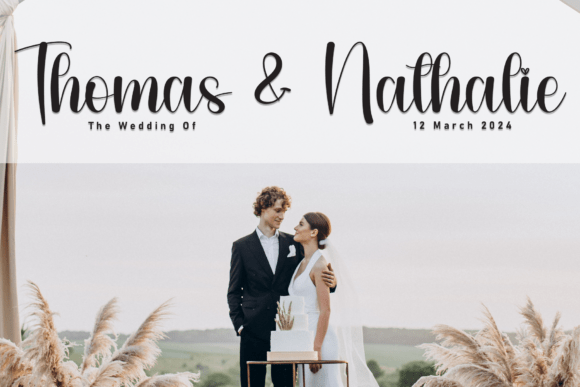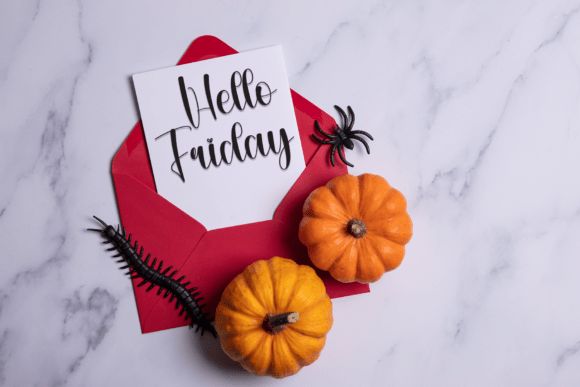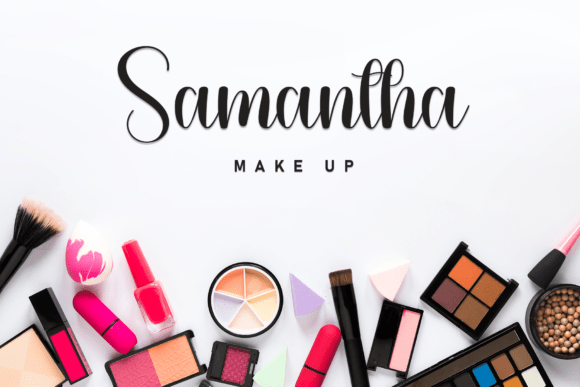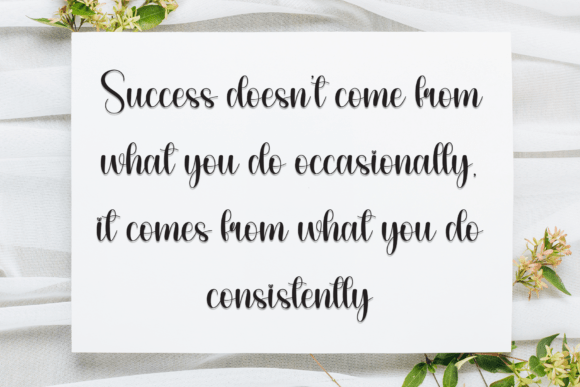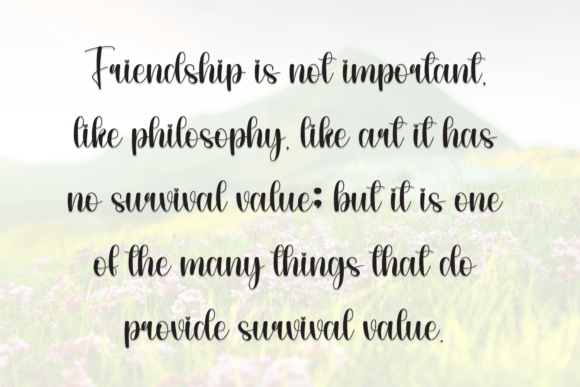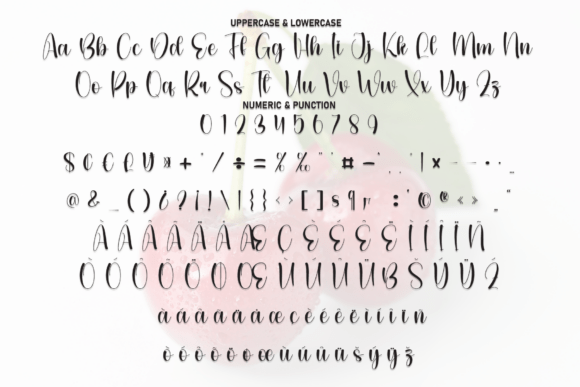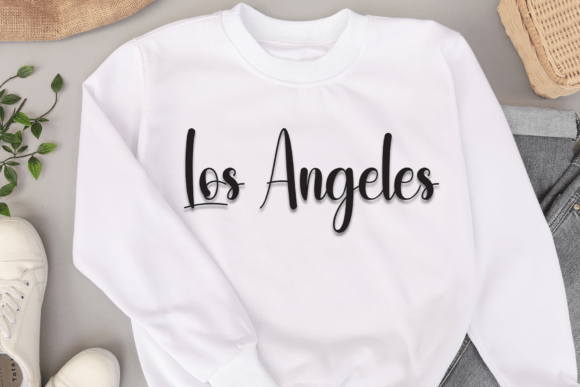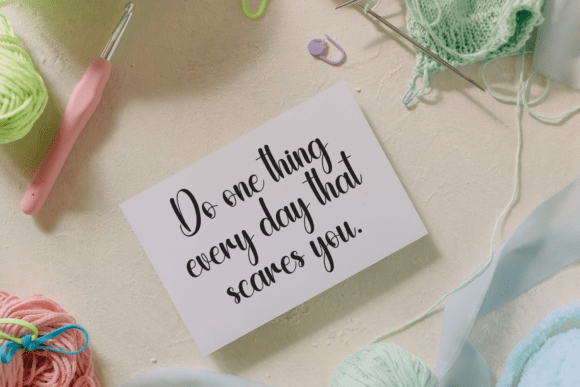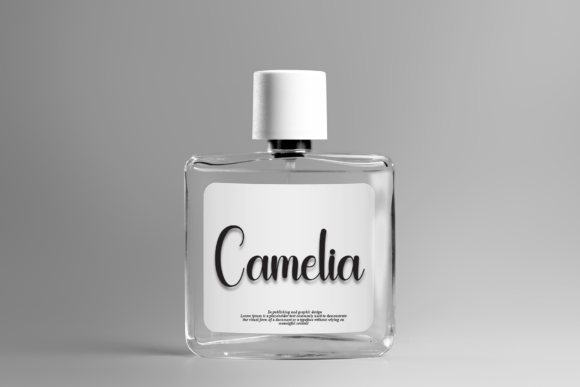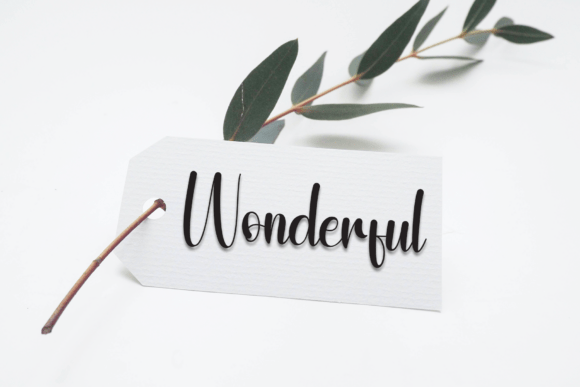
Introducing Cherry Font: The Ultimate Elegance and Playfulness in Handwritten Script
In the world of typography, few fonts manage to strike a balance between elegance and playfulness as effortlessly as Cherry Font. This stylish handwritten script font has been turning heads with its unique blend of sophistication and charm, making it a go-to choice for designers and crafters looking to add a personal touch to their projects. Whether you’re working on invitations, branding, social media, or any other creative endeavor, Cherry Font is sure to bring a level of warmth and creativity that’s hard to match.
The Essence of Cherry Font
At its core, Cherry Font is all about capturing the essence of handwritten elegance with a playful twist. Its flowing curves and natural rhythm give it a distinctly organic feel, reminiscent of handwritten scripts but with a level of precision and consistency that’s uniquely digital. This blend of the organic and the digital is what sets Cherry Font apart, making it an excellent choice for projects that require a touch of sophistication without losing the personal, human element.
Key Features of Cherry Font
• Elegant and Playful Strokes: Cherry Font boasts smooth, flowing strokes that combine elegance with a playful sense of movement. This makes it perfect for designs that need to convey a sense of luxury or creativity.
• Versatile and Adaptable: From formal invitations to social media posts and branding materials, Cherry Font’s versatility shines through. Its adaptability ensures it can fit into a wide range of design contexts.
• Warmth and Sophistication: The font brings a unique warmth to digital and print projects alike, adding a layer of sophistication that’s hard to achieve with more generic fonts.
• Easy to Read: Despite its elegant and cursive nature, Cherry Font maintains a high level of readability, making it suitable for longer texts as well as short phrases and headings.
Uses of Cherry Font
Cherry Font’s unique characteristics make it suitable for a variety of applications:
• Wedding Invitations and Stationery: Add a touch of elegance and romance to your wedding invitations, thank you cards, and other stationery.
• Branding and Logotypes: Stand out with a logo or brand identity that exudes sophistication and creativity.
• Social Media Graphics: Elevate your social media presence with stylish graphics, quotes, and posts that capture your audience’s attention.
• Packaging Design: Add a personal touch to product packaging, making your brand more relatable and memorable.
Tips for Using Cherry Font Effectively
To make the most of Cherry Font, consider the following tips:
• Pair with Complementary Fonts: For maximum impact, pair Cherry Font with simpler fonts to create contrast and make your design pop.
• Experiment with Colors: While Cherry Font looks stunning in classic black and white, don’t be afraid to experiment with colors that complement your brand or design theme.
• Adjust Letter Spacing: For a more customized look, play around with letter spacing to achieve the perfect flow and rhythm for your text.
Cherry Font is more than just a stylish addition to your typography arsenal; it’s a tool that can transform your designs, bringing them to life with elegance, playfulness, and a personal touch. Whether you’re a professional designer or a DIY crafter, Cherry Font offers the versatility and charm needed to make your projects stand out. So why settle for ordinary when you can add a touch of cherry on top? Explore the possibilities of Cherry Font today and discover how it can elevate your creative projects to new heights.
Cherry Font Free Download – Windows, Mac, Linux
Introducing Cherry Font: The Ultimate Elegant and Playful Script Font
Are you a designer or crafter looking for a font that can add a touch of elegance and playfulness to your projects? Look no further than Cherry Font, a stylish handwritten script font that captures the essence of sophistication and whimsy in every stroke. With its flowing curves and natural rhythm, Cherry Font is the perfect addition to any design project, from invitations and branding to social media and more.
The Characteristics of Cherry Font
Cherry Font is a beautifully crafted script font that boasts a range of characteristics that make it stand out from the crowd. Its flowing curves and natural rhythm give it a sense of movement and fluidity, making it perfect for designs that require a touch of elegance and sophistication. The font’s handwritten nature also gives it a personal and charming touch, making it ideal for projects that require a more human and approachable feel.
The Benefits of Using Cherry Font
So why choose Cherry Font for your design projects? For starters, its elegant and playful design makes it perfect for a wide range of applications, from formal invitations and branding to social media and digital marketing. The font’s warm and sophisticated feel also makes it ideal for projects that require a touch of luxury and refinement. Additionally, Cherry Font’s creative and charming nature makes it perfect for designers and crafters who want to add a personal touch to their work.
Get Creative with Cherry Font
So why wait? Get creative with Cherry Font today and see how it can elevate your design projects to the next level. With its unique blend of elegance and playfulness, Cherry Font is sure to become a favorite among designers and crafters alike.